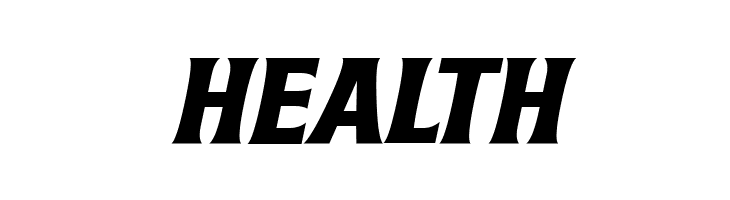
A bold, slanted font with a geometric and dynamic style.
A bold, modern font with strong, impactful characters.
A bold, italic font with dynamic, slanted letterforms for a modern and energetic look.